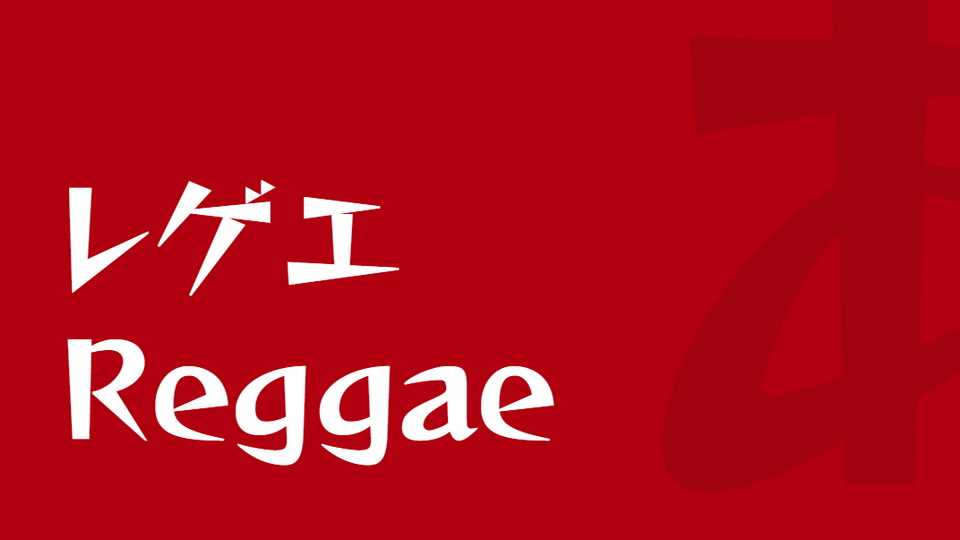
Download Reggae font, a very popular display typeface often used in Japanese boys’ magazines and digital content. The sharpened ends give off a dynamic pulse, making this font ideal to express rhythm, movement and energy, or for emphasis.
Designer: Fontworks Inc.